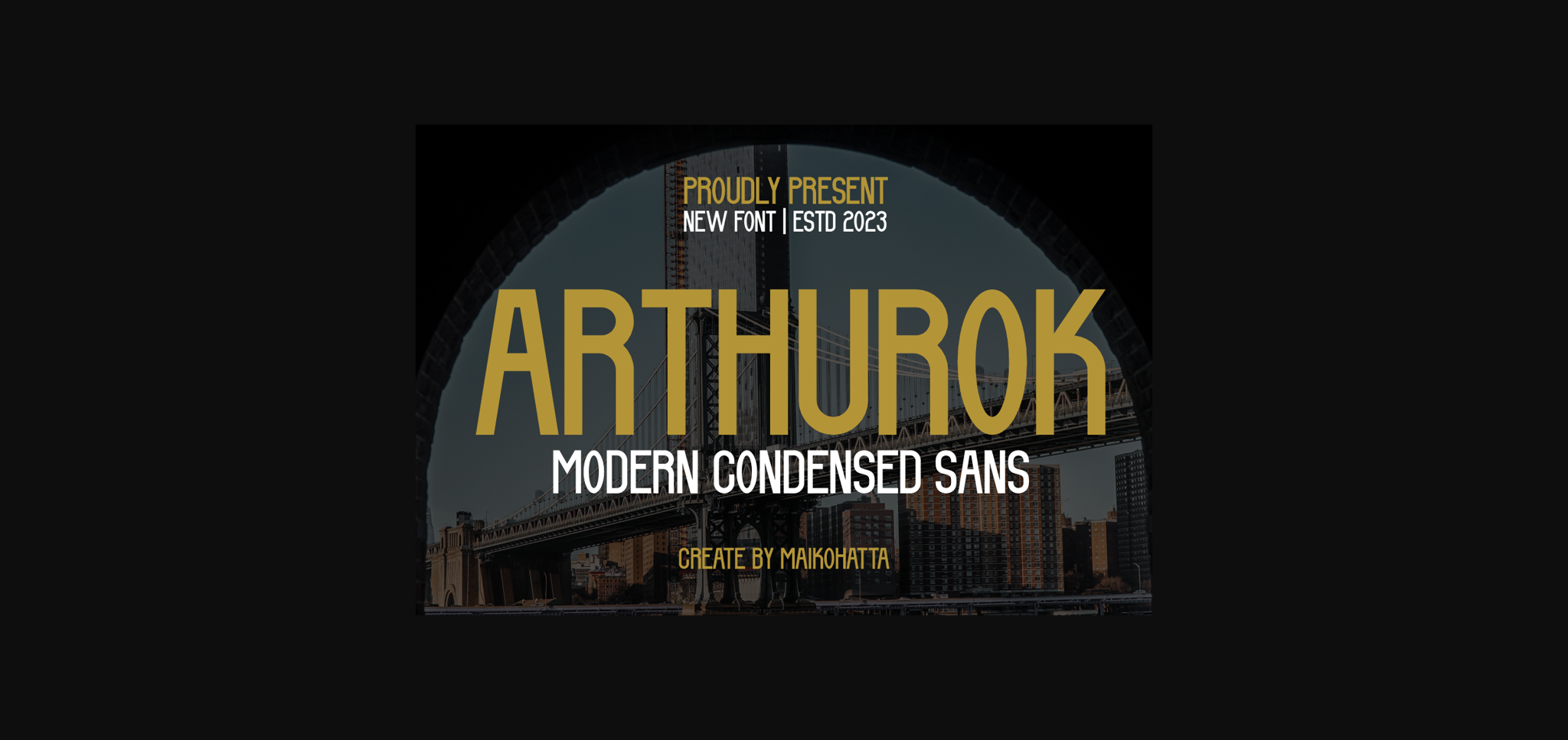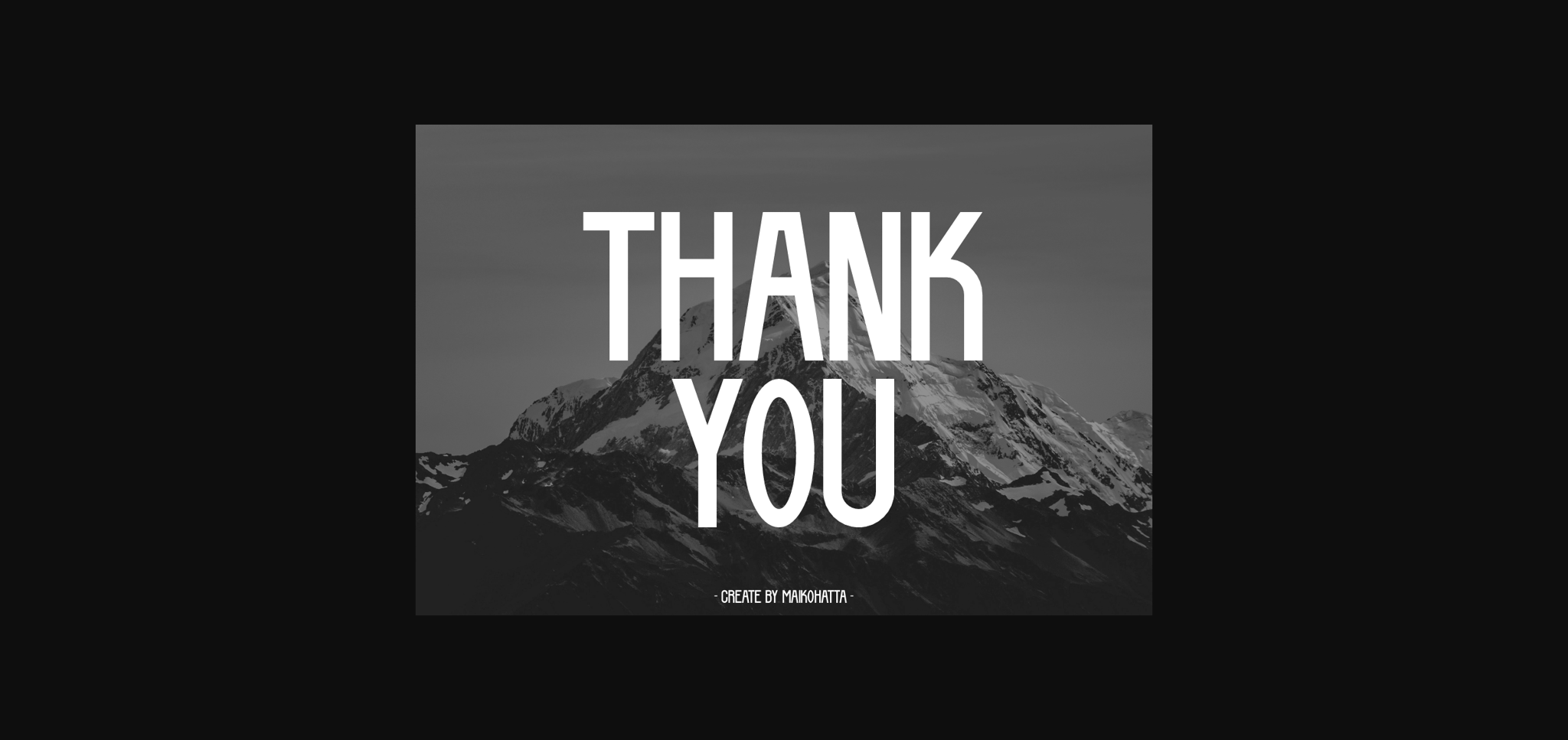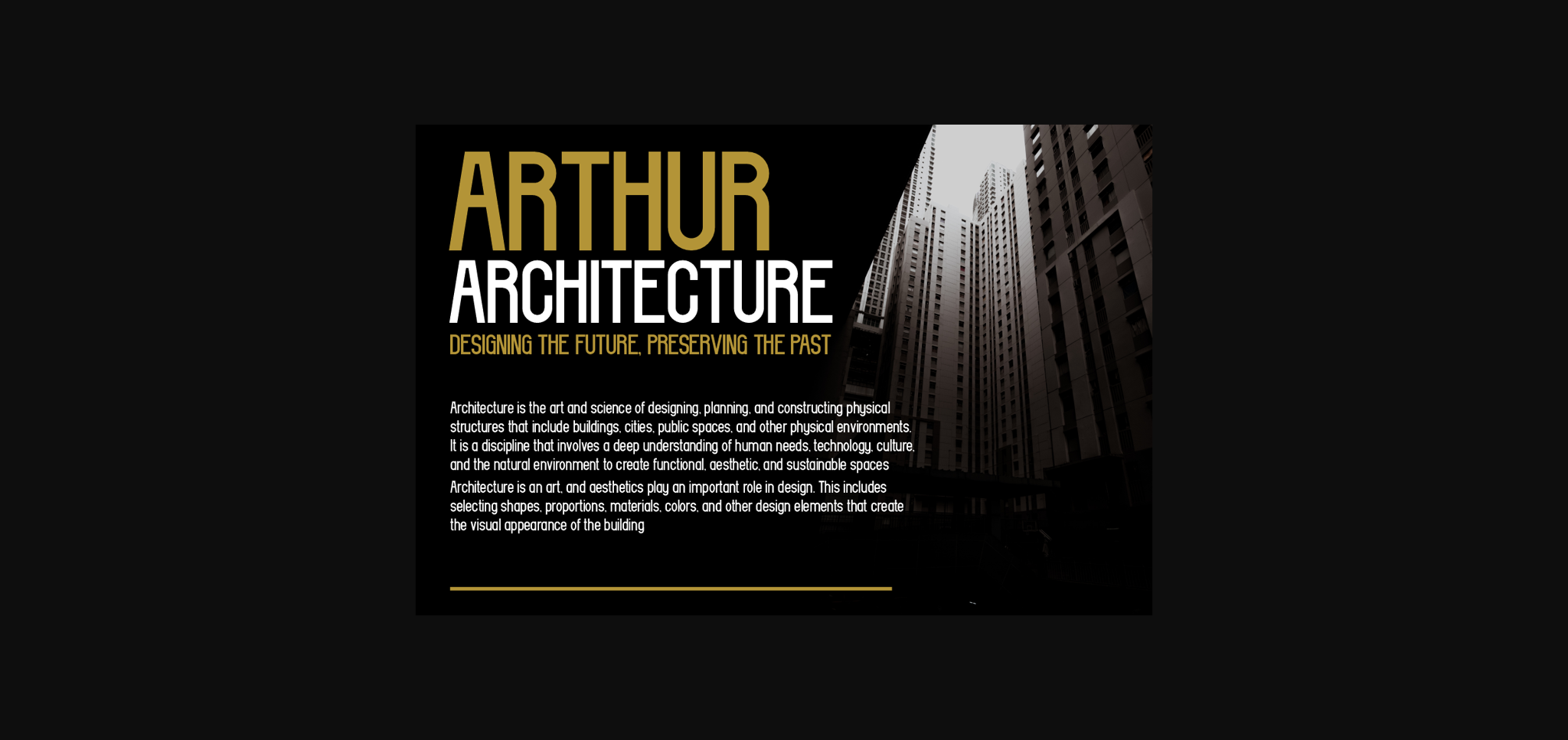
About Arthurok Font
This font is a type of font that is characterized by narrower or slimmer letterforms compared to regular or wide fonts. Condensed fonts are often used in various graphic designs, print materials, and other media because they have distinct advantages and unique characteristics